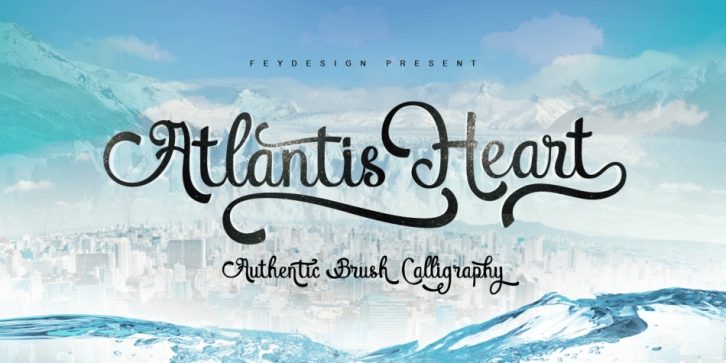
Atlantis Heart is a dingbat and brush script font family. This typeface has two styles and was published by feydesign.
Atlantis Heart Brush Font is an authentic calligraphy style font. It is suitable for design, element design, weddings, events, t-shirts, logo, badges, sticker, and awesome work, and many more.
Features of the fonts:
- Combination of alternative ligature fonts
- Standard Ligatures, Stylistic Set, Multilanguage Characters
- Authentic Calligraphy Typeface
- Multilanguage Support
- Unique style fonts
- Easily customized
· Atlantis Heart Regular
· Atlantis Heart Swashes